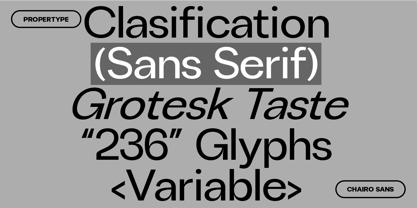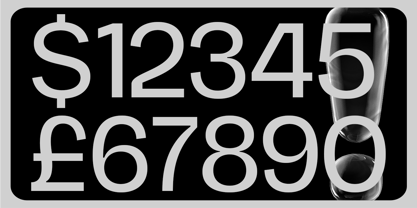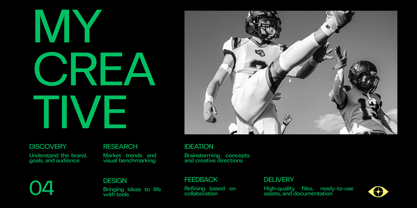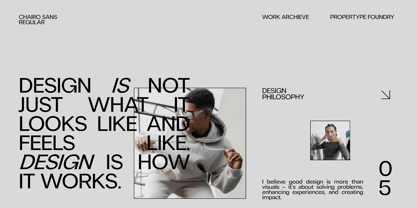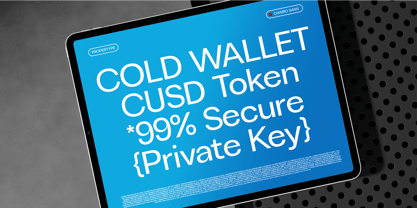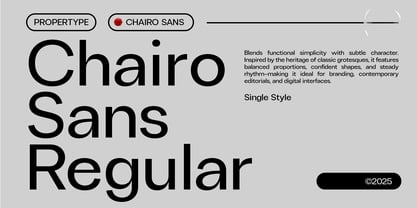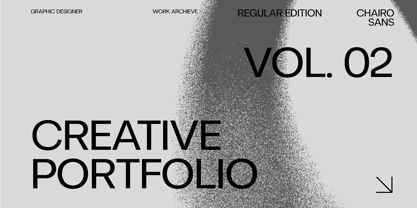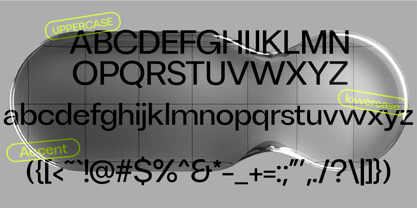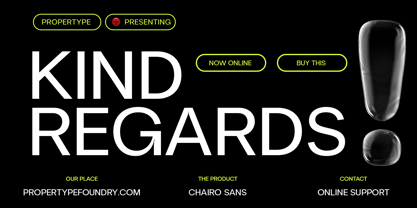
Chairo Sans Regular
The Chairo Sans Regular Font Family was designed by Nadia Auliana and published by Propertype. Chairo Sans Regular contains 2 styles and family package options. More about this family
ChairoSans is an elegant, modern, and contrasting Suns serif font family. It includes both upright and italic styles. This versatile font is perfect for any project, contrasting, modern, and easy to read. With it, you can create logos, use it in advertisements, packaging, book and magazine covers, titles, descriptions, and more. Download ChairoSans for your next project today. What's included? Uppercase Characters Lowercase Characters Numbers and Ligatures The ChairoSans family has multilingual support for a variety of languages.